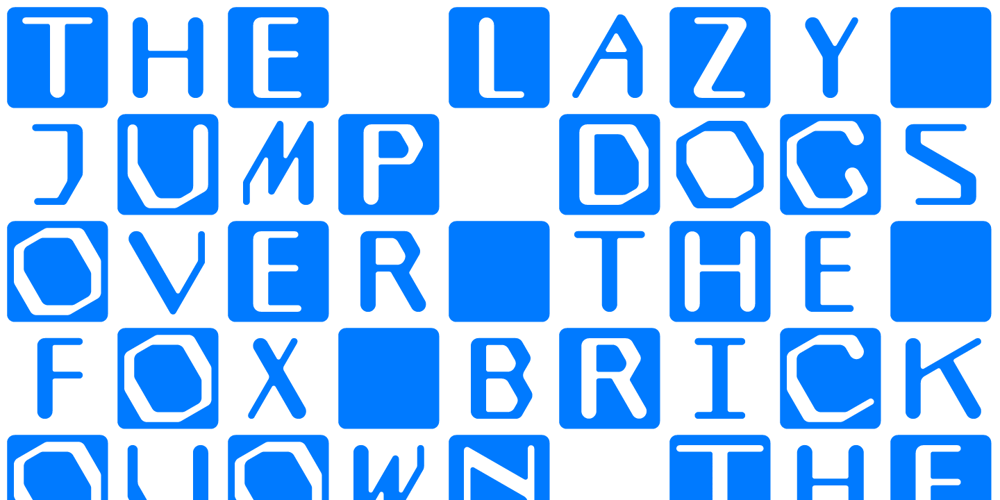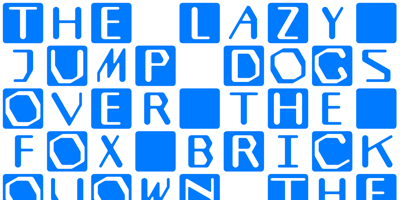
Olymp80 Font Family was designed by Konstantin Boldovskiy and published by Konst.ru. Olymp80 contains 2 styles and family package options. Dedicated to the XXII summer Olympic Games. I was inspired by the icons of these games when creating font Olymp80. This is an excerpt from the official report of the Moscow Olympics: “Sports pictographs, as we know, are pictographic drawings symbolising sports. They serve as points of reference and help overcome language barrier. Over the past few years, they have been integrated into the decoration of Olympic cities, and have been depicted in Olympic posters, commemorative medals, postage stamps, tickets, souvenirs, etc. On the OCOG-80’s request, graduates from several art colleges took up the design of the pictographs of the insignia as the theme of their dissertations. With the help of the research institute of industrial aesthetics, the Organising Committee chose the work submitted by Nikolai Belkov, Mukhina Art School graduate from Leningrad. The State Committee for Inventions and Discoveries under the USSR Council of Ministers recognised the new design as a production pattern. Though highly stylised, the new signs are easily comprehensible. They are smoother in outline because they are constructed at an angle of 30-60 (previously the angle was 45-90). Another merit of the new system is that the designs can be adapted for use in four representations: direct (solid, black against a white background), reverse (solid, white against a black background), contour (black contour against a white background), and reverse-contour (white contour against a black background), and permit several colour and shade and size variations.” All text and pictures you may see on 1980 Moscow, Volume 2, Part 2, Page 420. Monospaced font for names, logotypes, titles, headers, topics etc. Font includes only uppercase letters with two alternative designs for each letter.